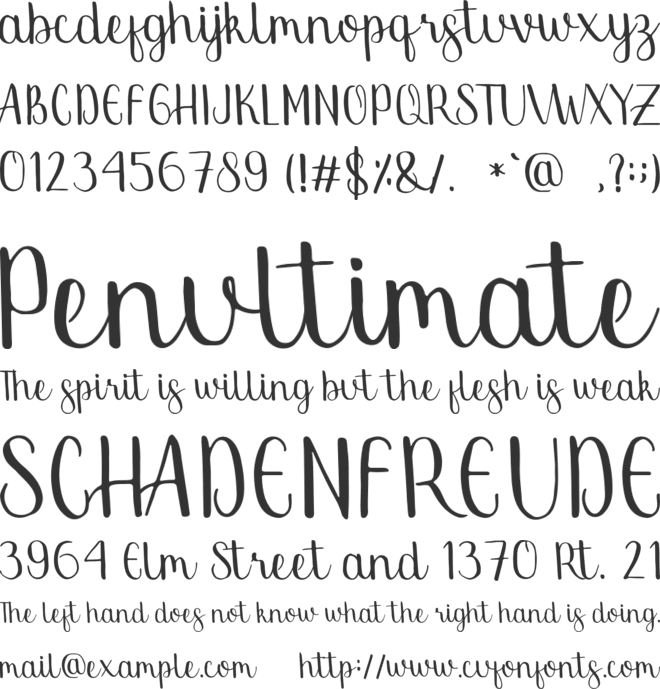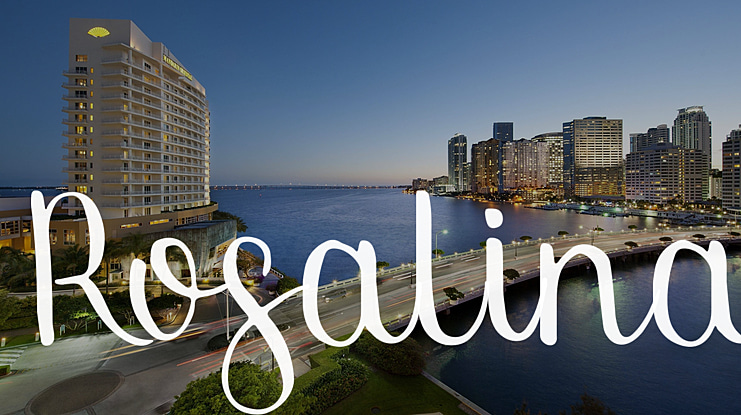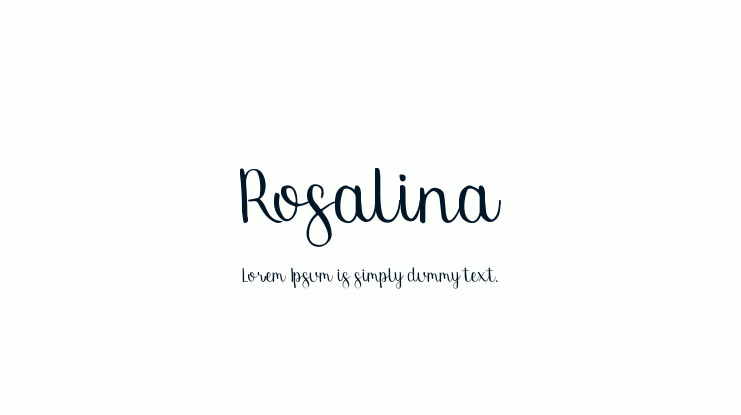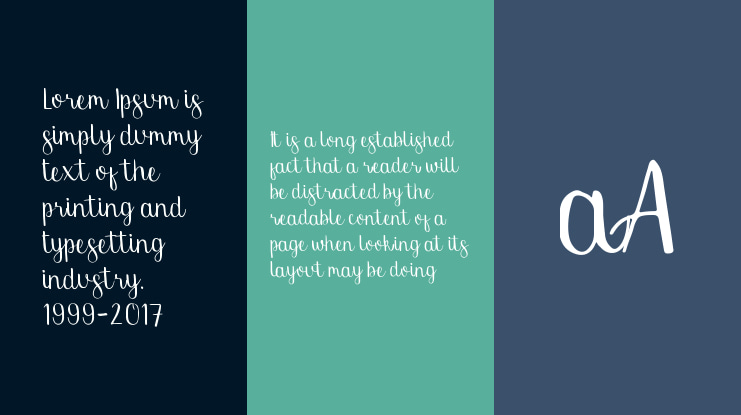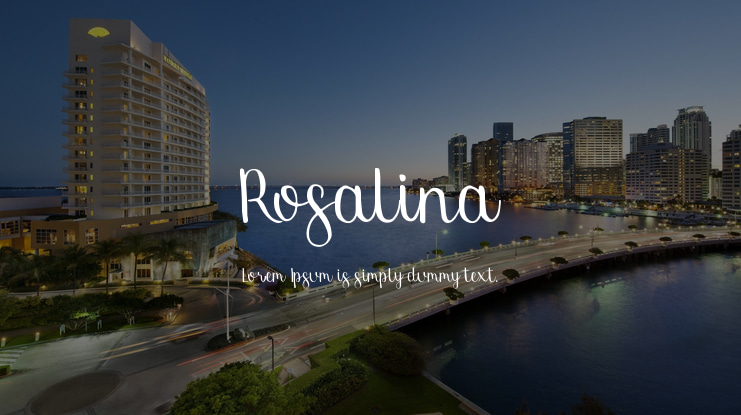
Rosalina Font
Rosalina - a brush script font created with a medium thickness pen brush that will make your design look more beautiful and soft.
Rosalina - will be perfect for magazines, business cards, invitations, packaging, tshirt, and all designs that require beautiful and soft elements.